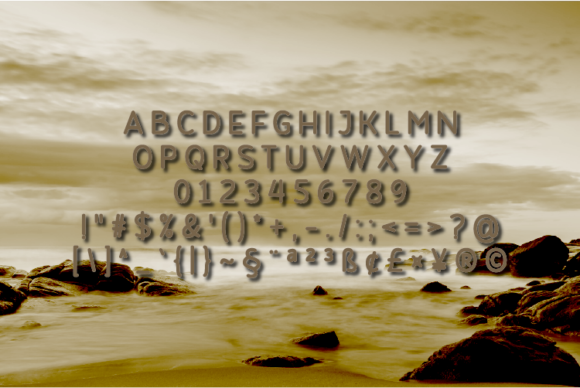
Dolvhpy Font: The Ultimate Sans Serif for Designers and Crafters
In the world of typography, fonts play a crucial role in making or breaking a design. A well-chosen font can elevate your project, making it more engaging, readable, and aesthetically pleasing. For designers and crafters looking for a versatile and stylish sans serif font, Dolvphy is an excellent choice. In this article, we’ll explore the features and benefits of Dolvphy, a smooth sans serif font that perfectly balances smooth and sharp elements to complement any design need.
What is Dolvphy Font?
Dolvphy is a modern sans serif font designed to provide a smooth and clean look to your designs. Its unique blend of rounded and sharp edges creates a visually appealing contrast that captures attention. This font is perfect for designers and crafters seeking a versatile typeface that can be used across various projects, from branding and advertising to packaging and digital media.
Key Features of Dolvphy Font
- Smooth and Sharp Balance: Dolvphy’s distinctive feature is its perfect balance of smooth and sharp elements. This balance creates a unique visual appeal that sets it apart from other sans serif fonts.
- Clean and Modern Look: The font’s clean lines and modern design make it suitable for a wide range of applications, from minimalist designs to complex projects.
- High Readability: Dolvphy’s clear and legible design ensures that your text is easy to read, making it perfect for body text, headings, and titles.
- Versatility: This font can be used across various mediums, including print, digital, and web design.
Benefits of Using Dolvphy Font
Using Dolvphy font in your designs offers several benefits:
- Enhances Visual Appeal: Dolvphy’s unique design adds a touch of sophistication and elegance to your projects, making them more visually appealing.
- Improves Readability: The font’s clear and legible design ensures that your text is easy to read, reducing eye strain and improving the overall user experience.
- Boosts Brand Identity: Dolvphy’s modern and clean design makes it perfect for branding and advertising projects, helping you establish a strong brand identity.
- Saves Time: With Dolvphy, you can create professional-looking designs quickly and efficiently, saving you time and effort.
Use Cases for Dolvphy Font
Dolvphy is a versatile font that can be used in a variety of projects, including:
- Branding and Advertising: Use Dolvphy to create stunning logos, brochures, and advertisements that capture attention.
- Digital Media: Dolvphy is perfect for digital media, including social media graphics, website headers, and mobile app designs.
- Packaging Design: The font’s clean and modern design makes it suitable for packaging design, including product labels and packaging materials.
- Print Design: Use Dolvphy for print design projects, such as business cards, flyers, and posters.
In conclusion, Dolvphy font is an excellent choice for designers and crafters looking for a smooth sans serif font that perfectly balances smooth and sharp elements. Its unique design, high readability, and versatility make it perfect for a wide range of projects. With Dolvphy, you can create stunning designs that capture attention, improve readability, and boost your brand identity. So why wait? Download Dolvphy font today and take your designs to the next level!